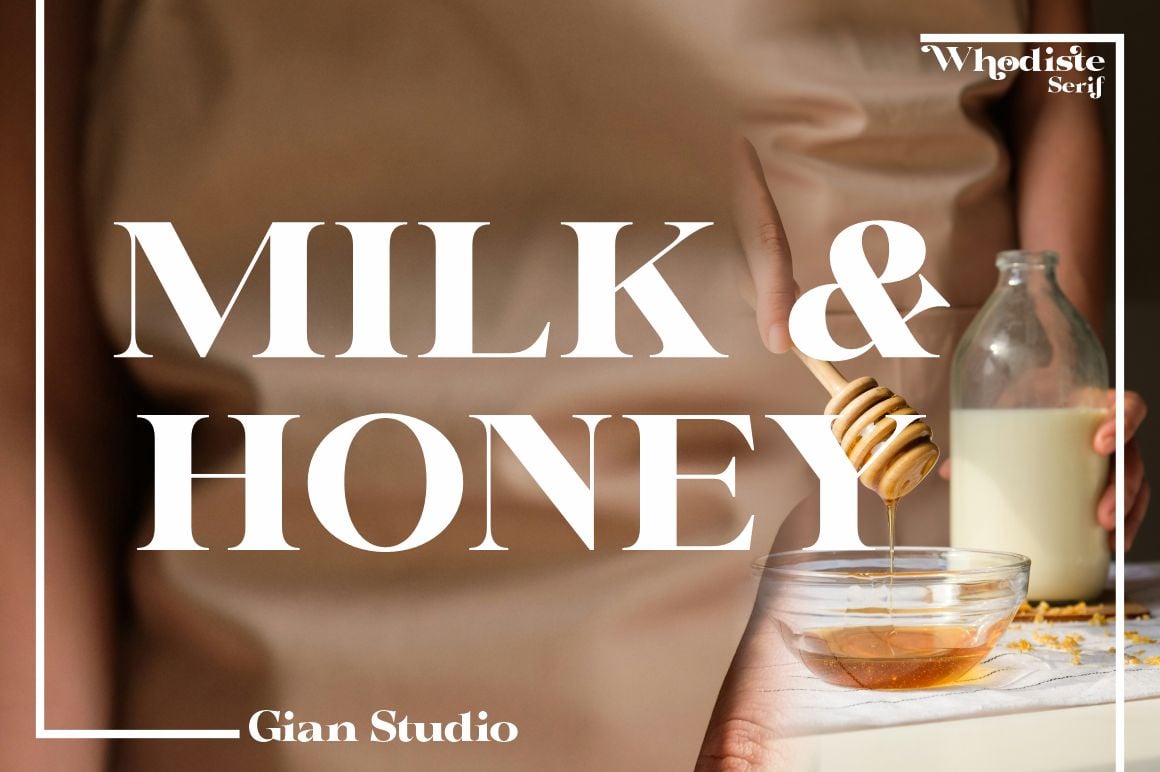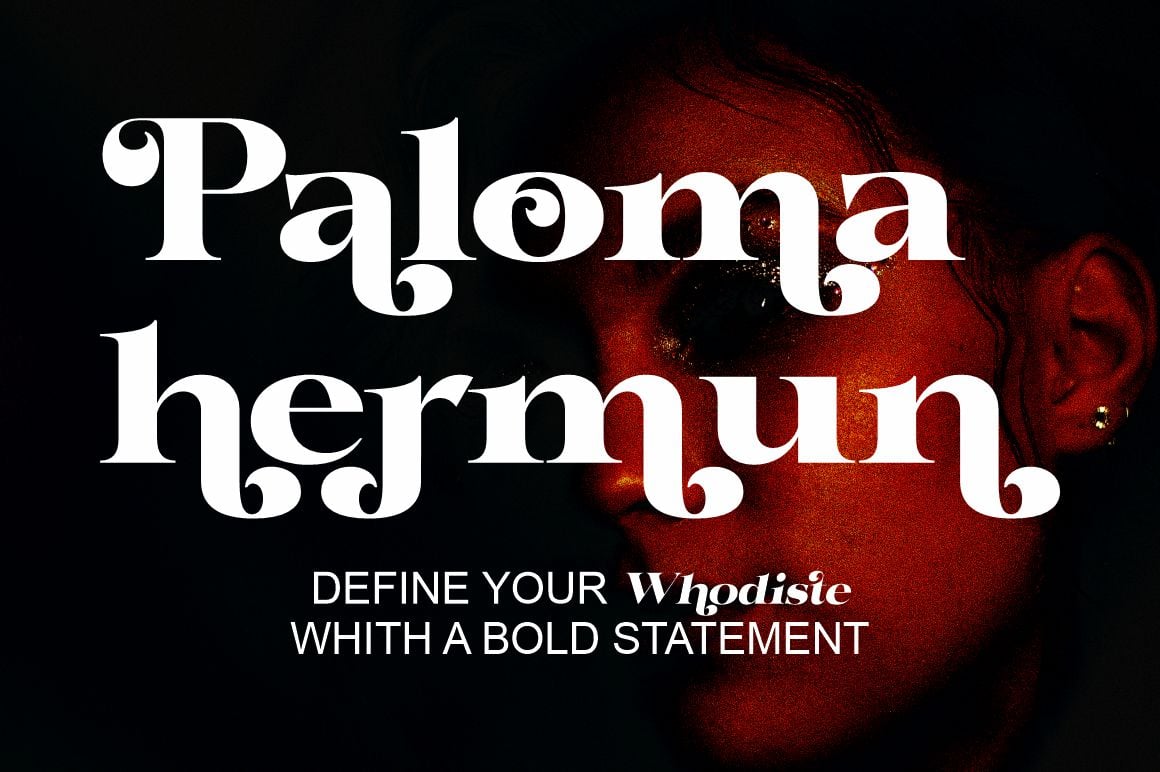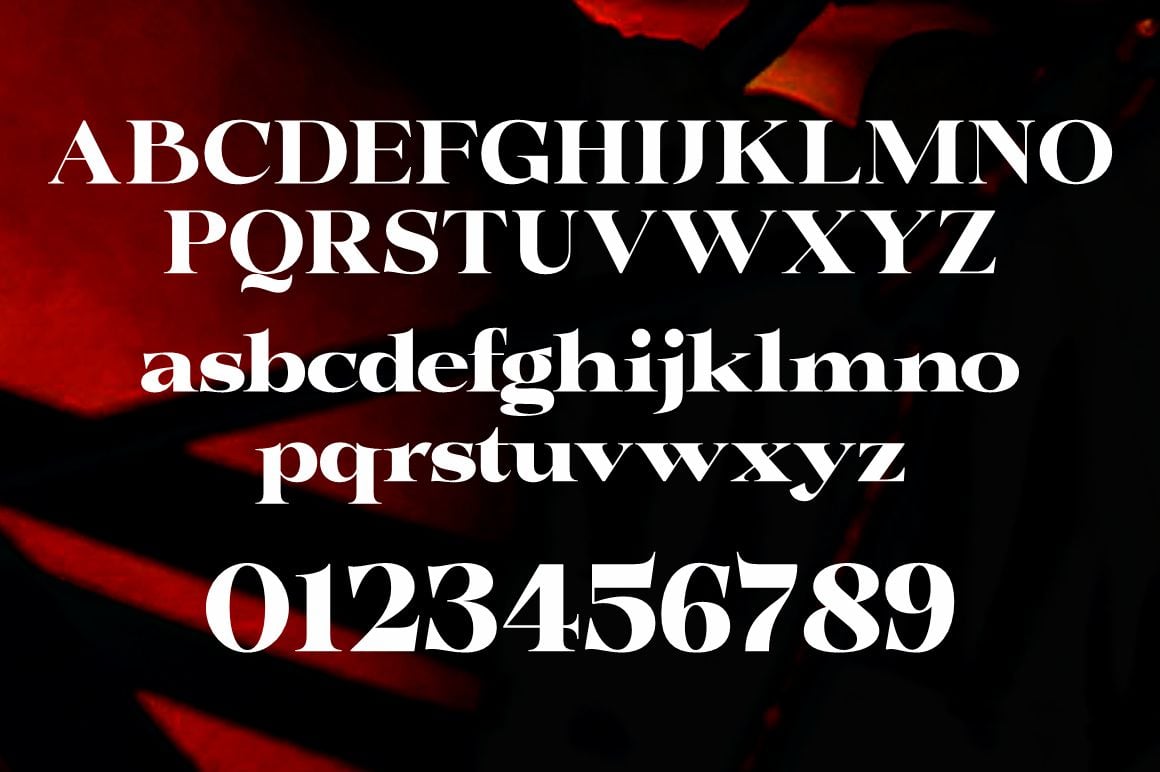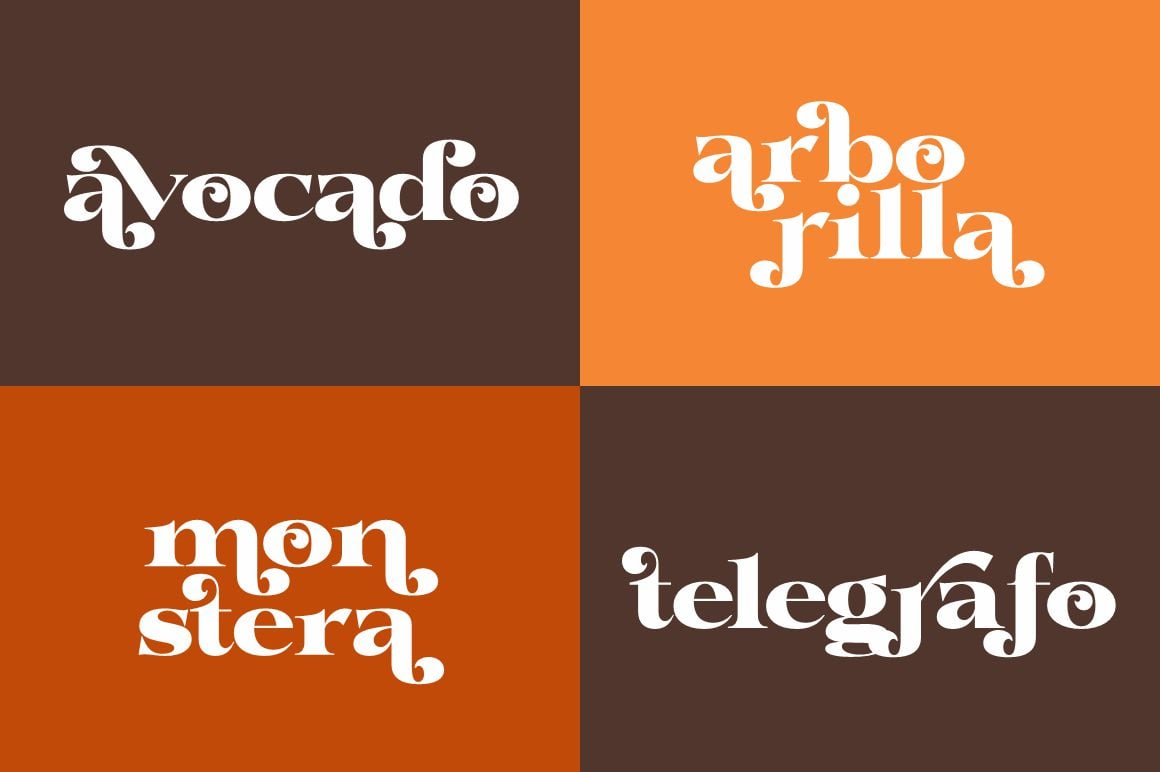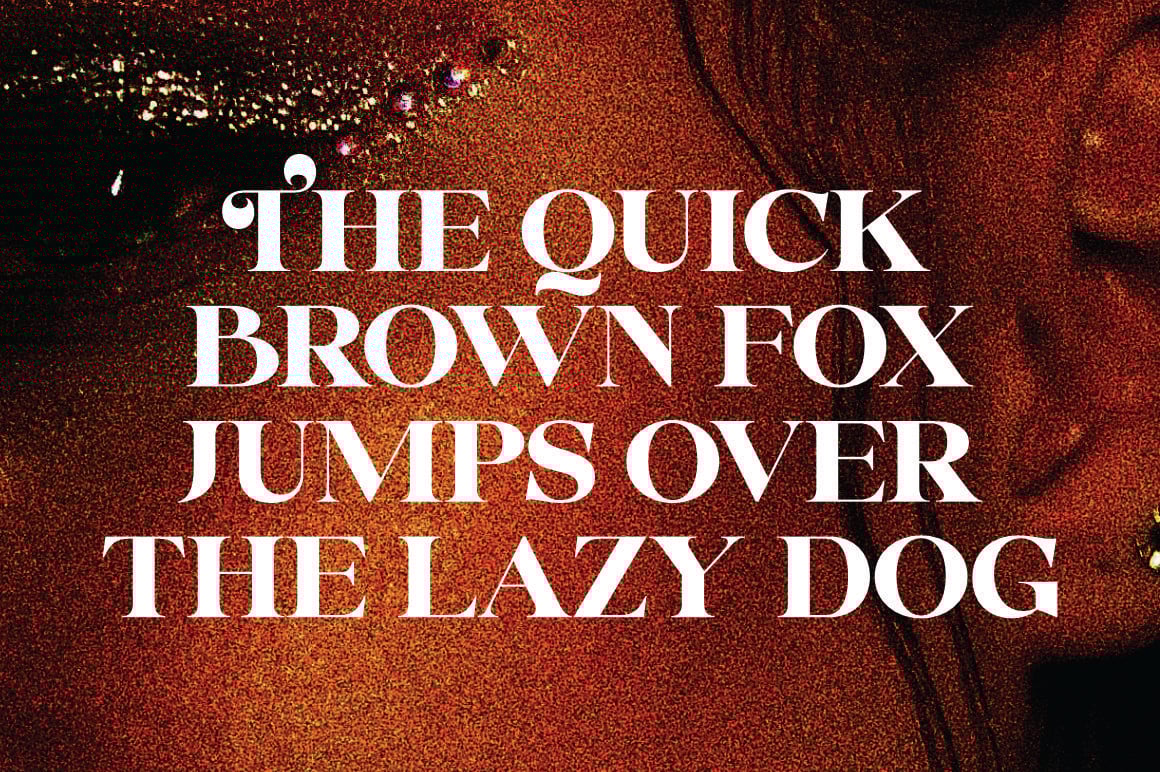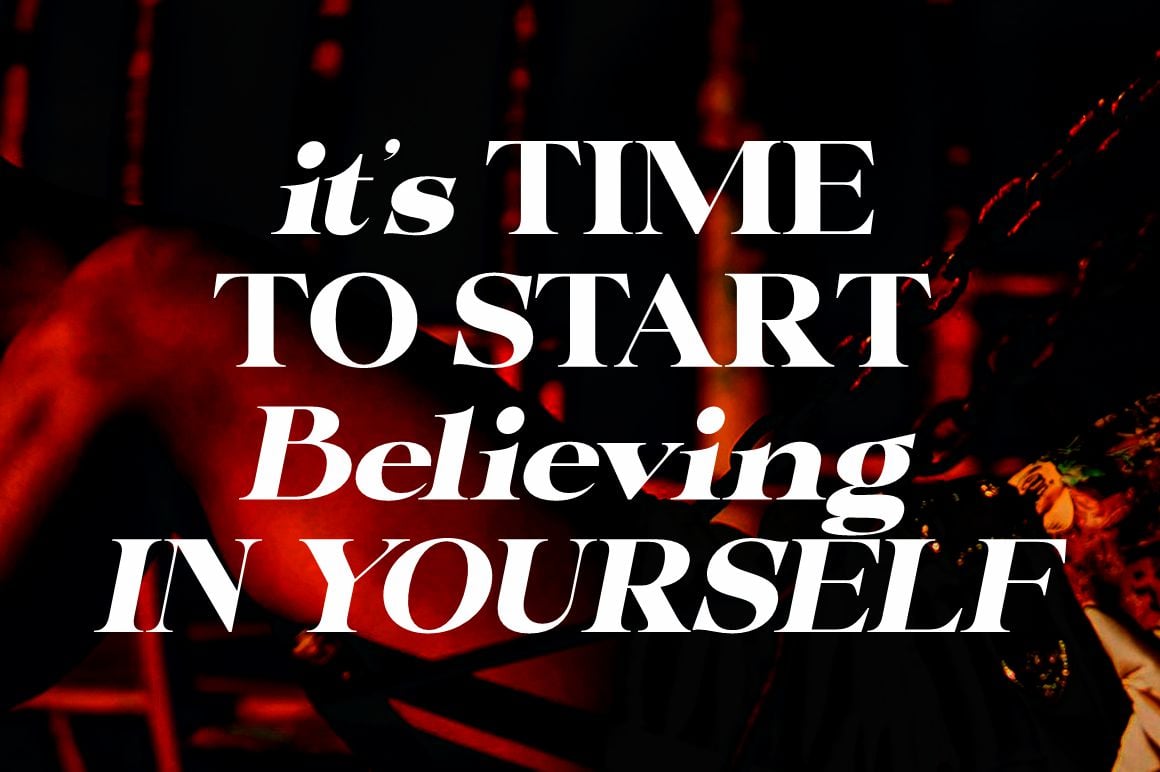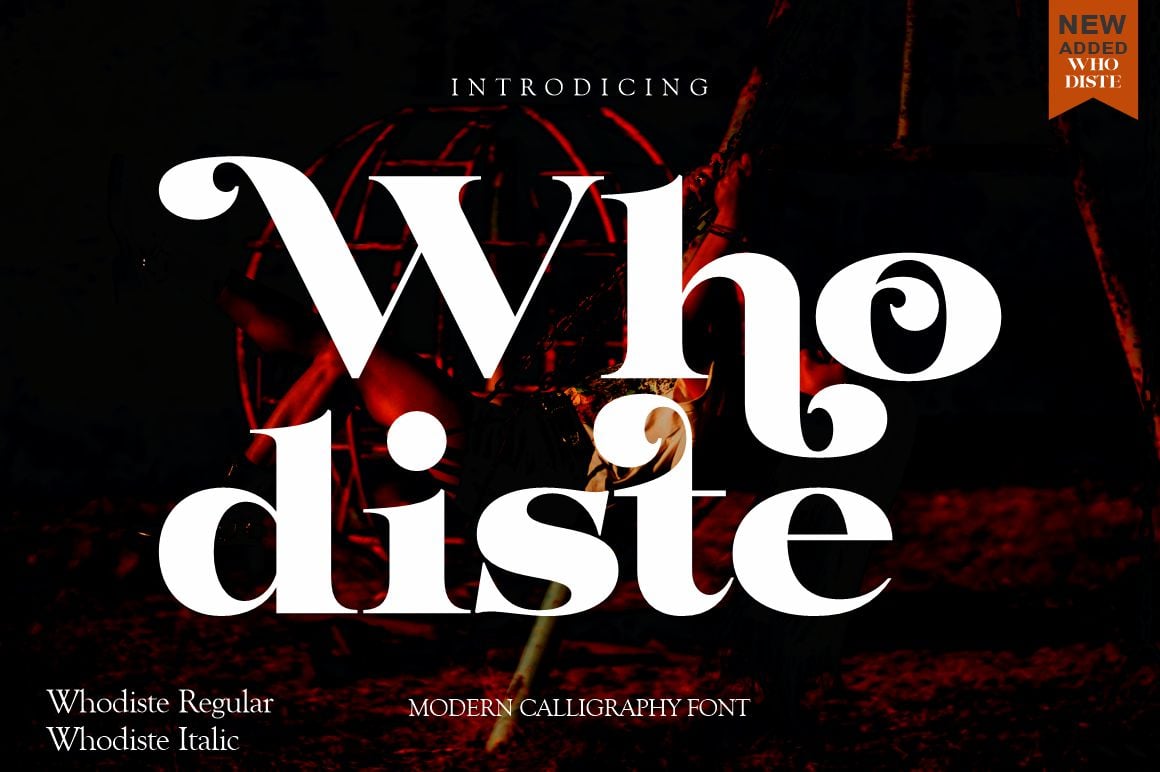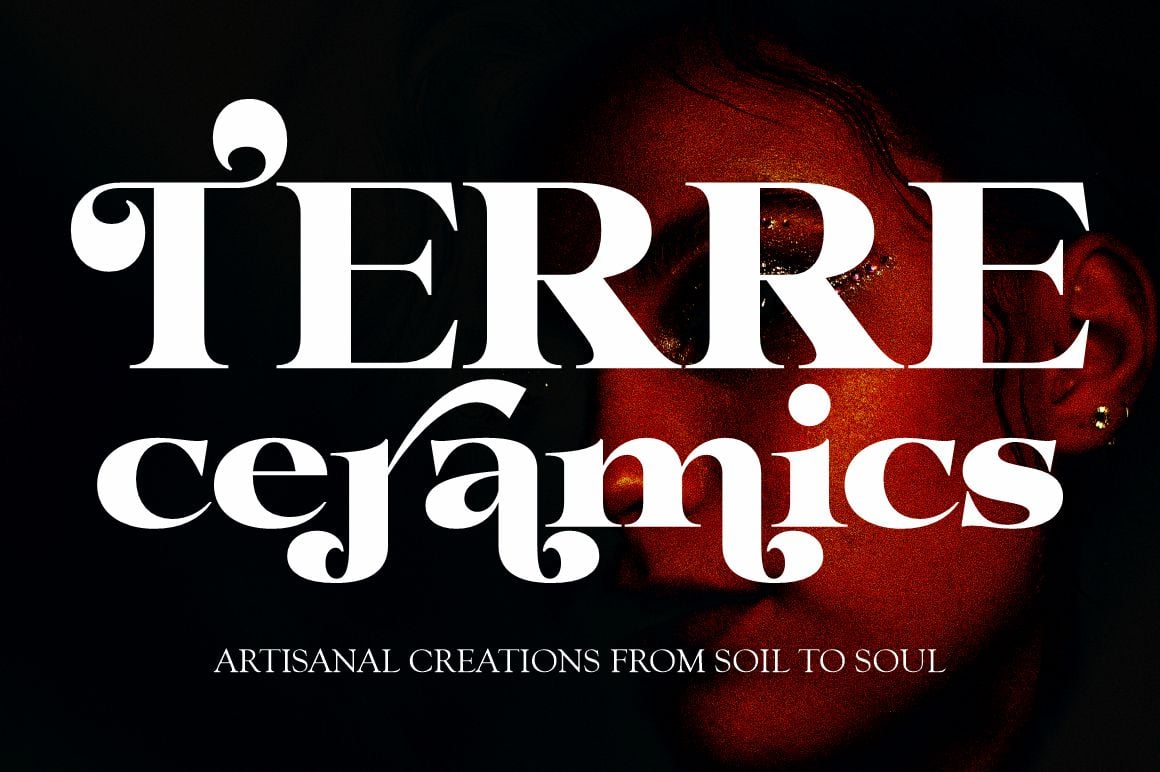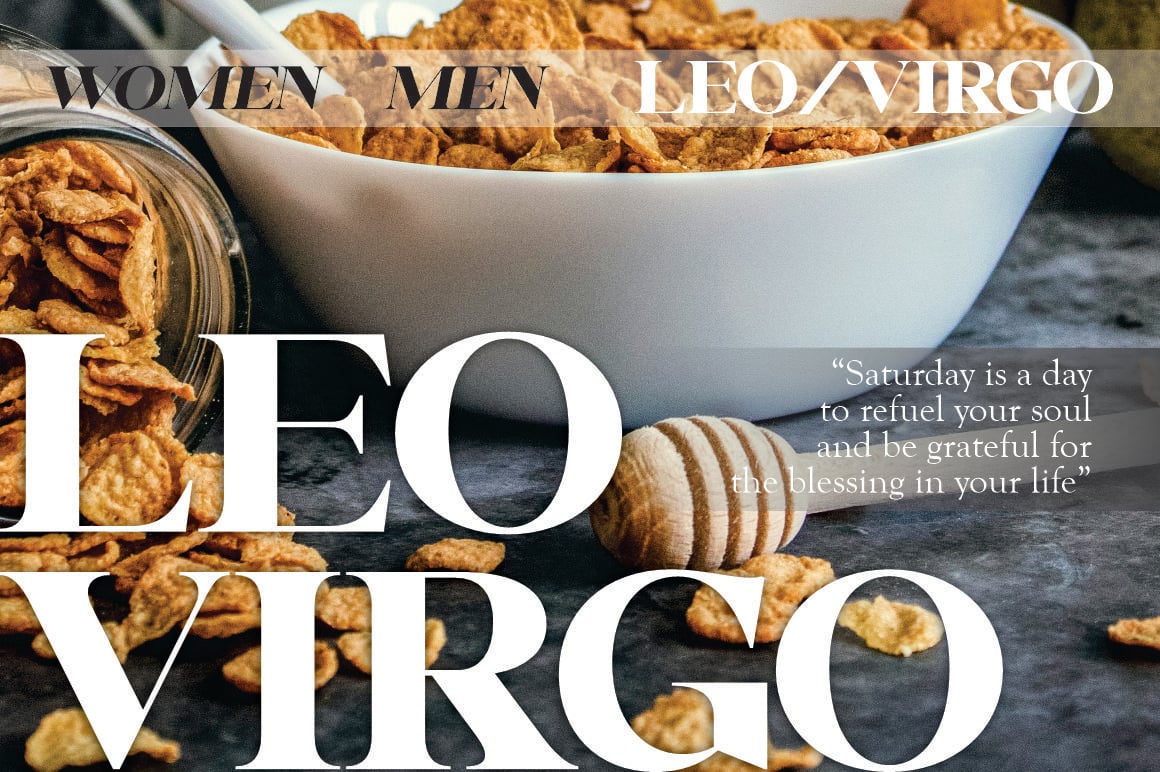
Whodiste Serif Font
Whodiste Serif takes inspiration from serif typefaces common in print media. The letterforms are well-suited for prominent uses such as logos and bold titles due to their distinctive style. The large x-height makes them suitable for tight initials in titles.
Whodiste Serif offers a variety of options and two different styles: Standard and Italic.